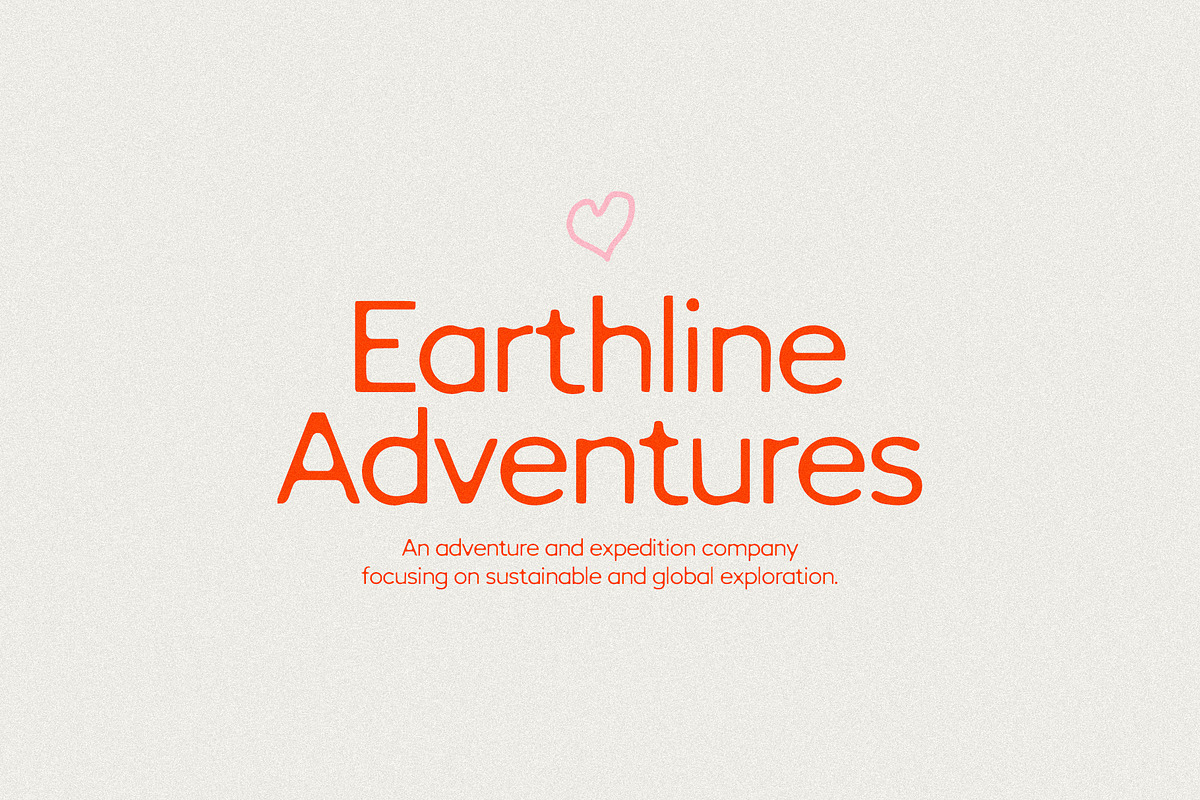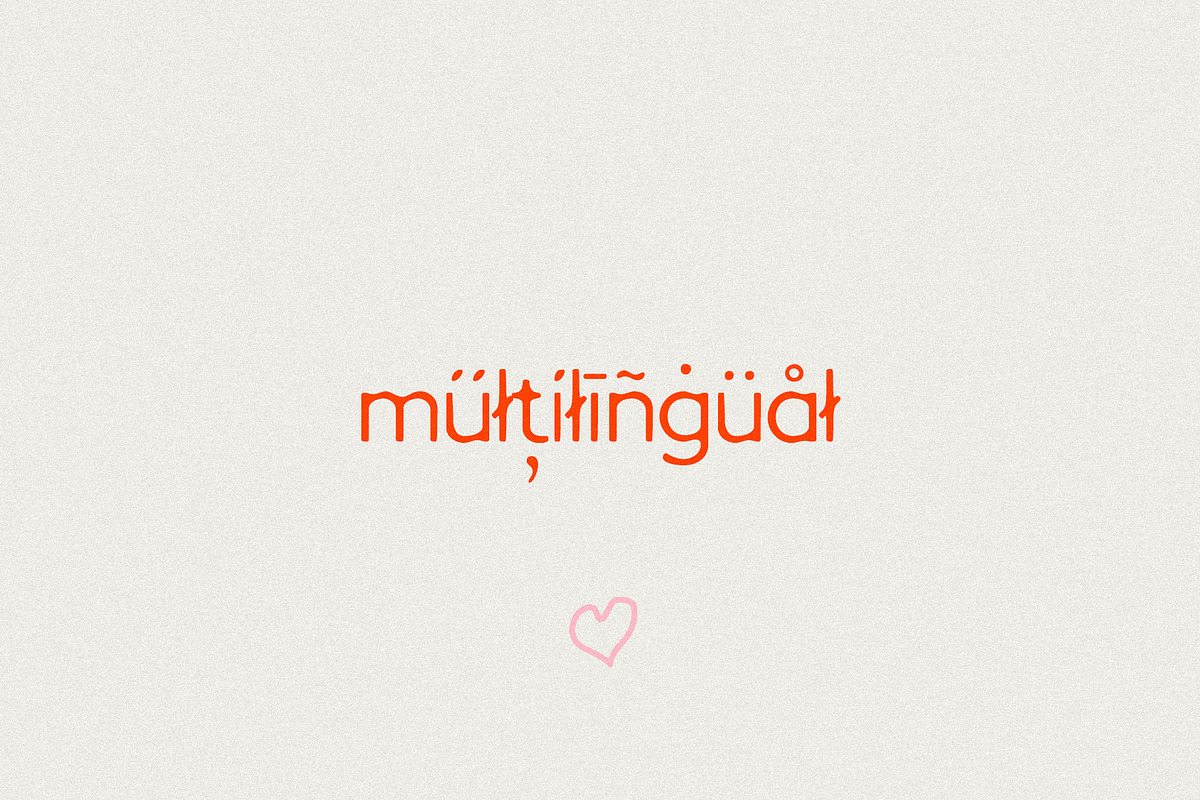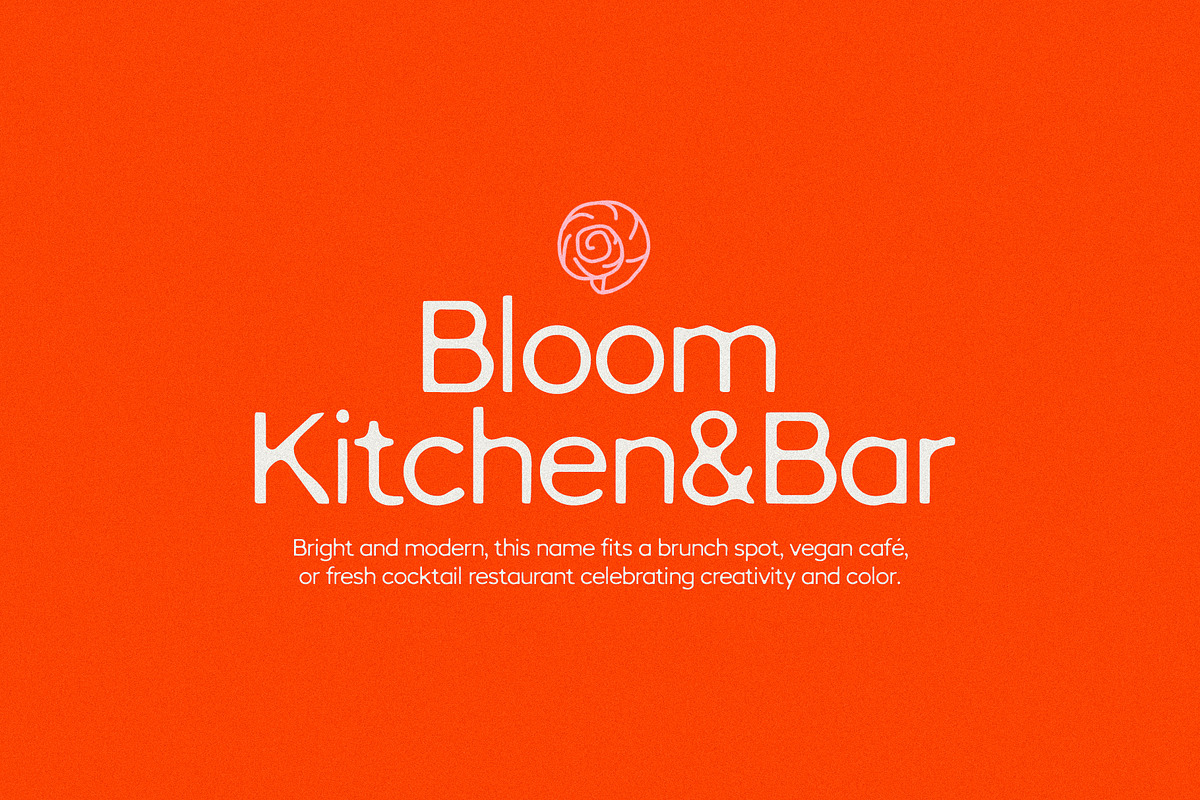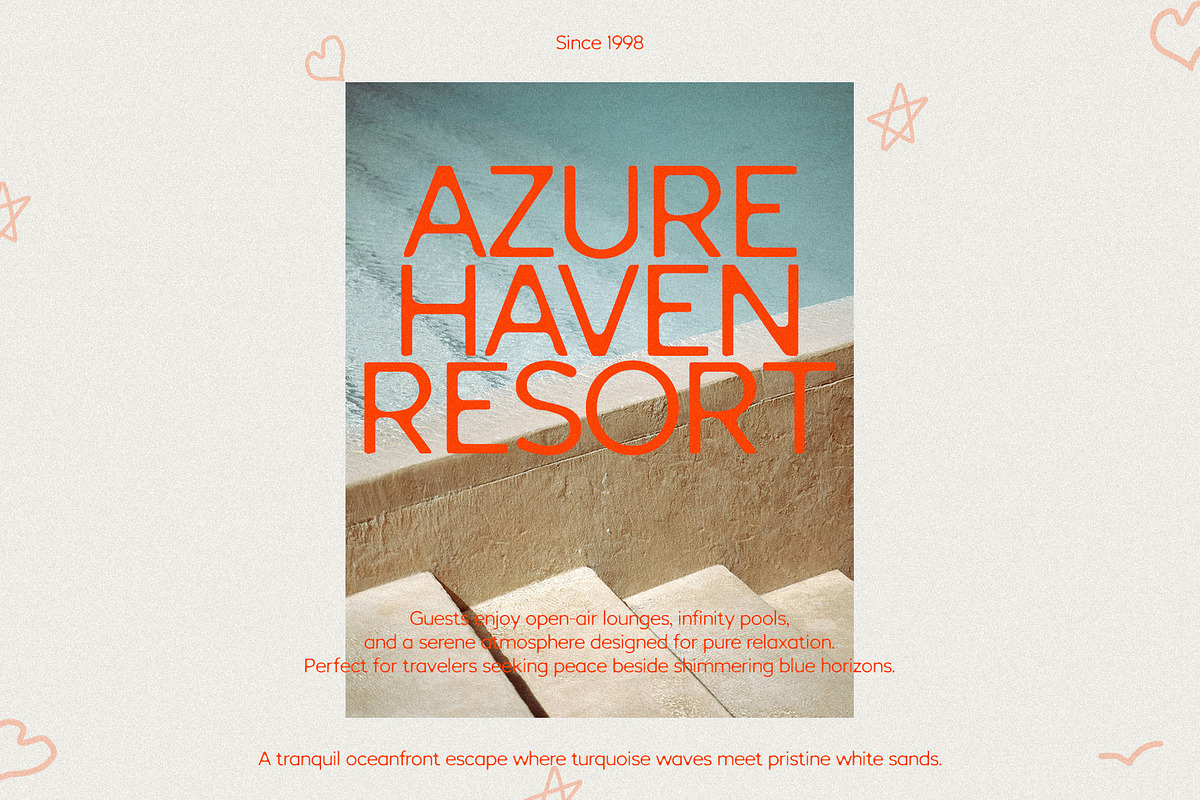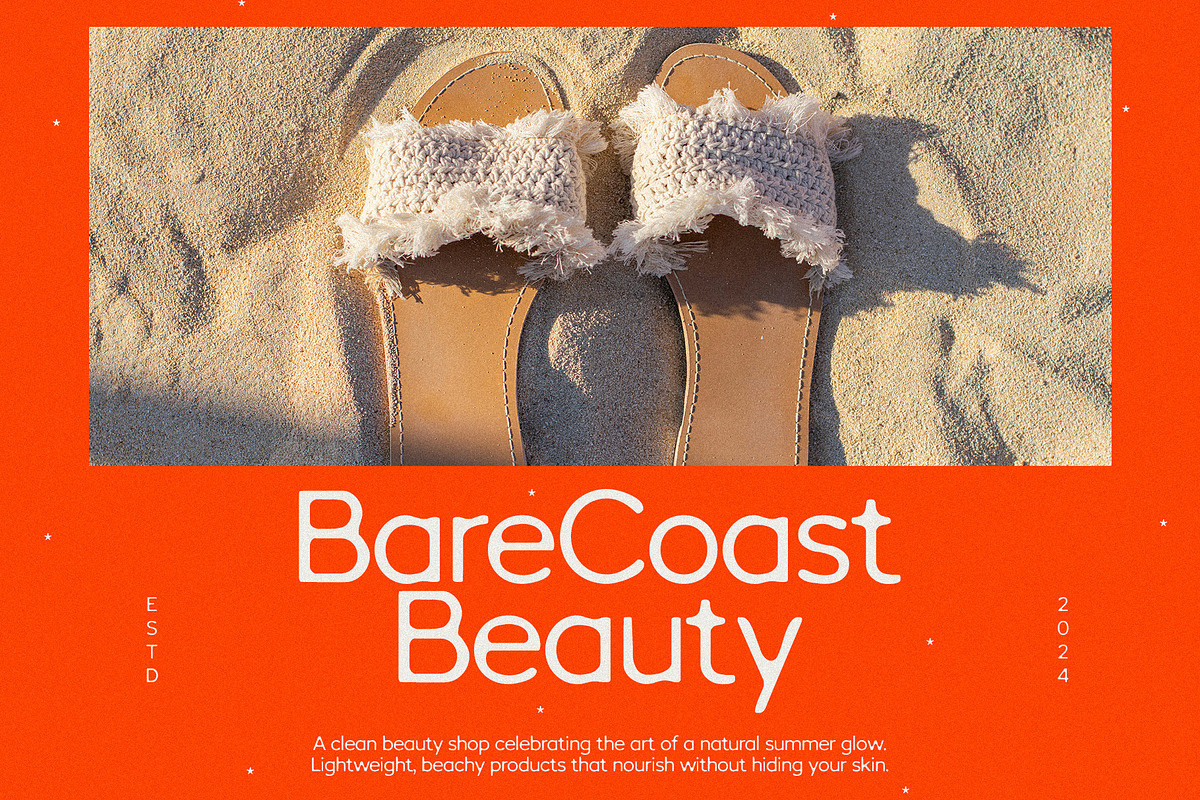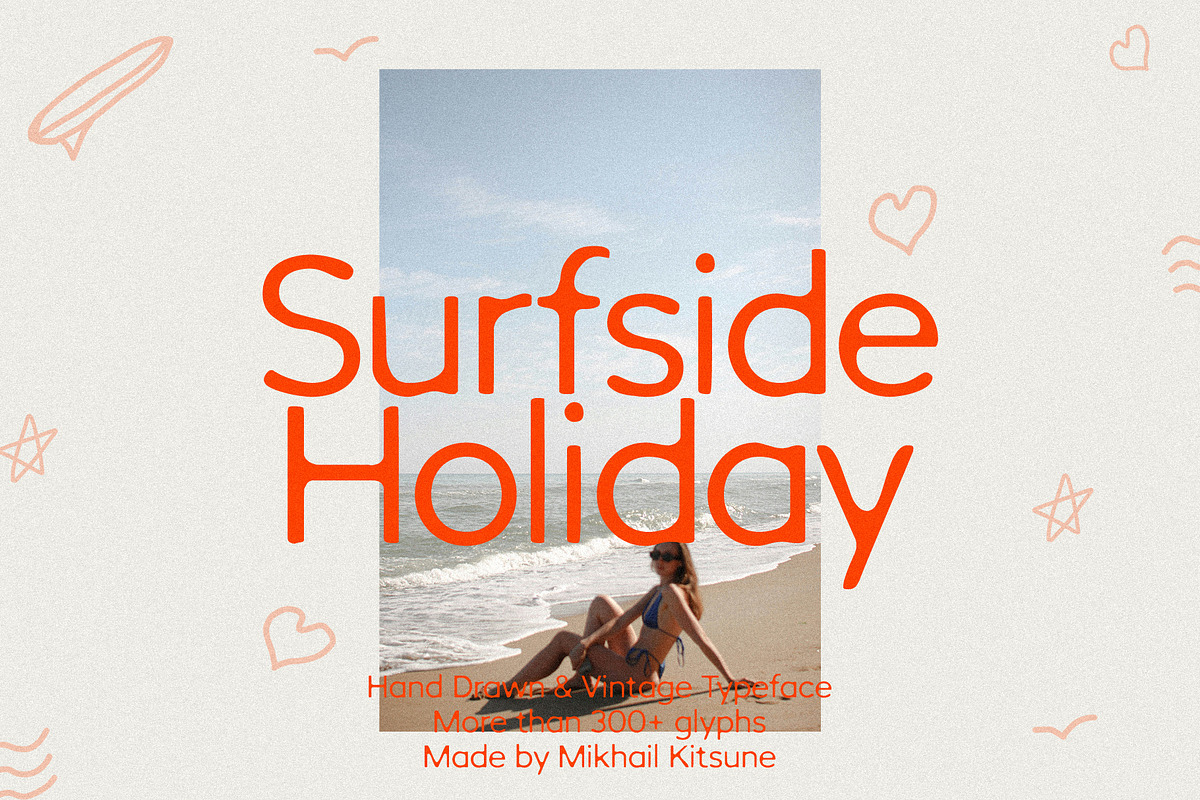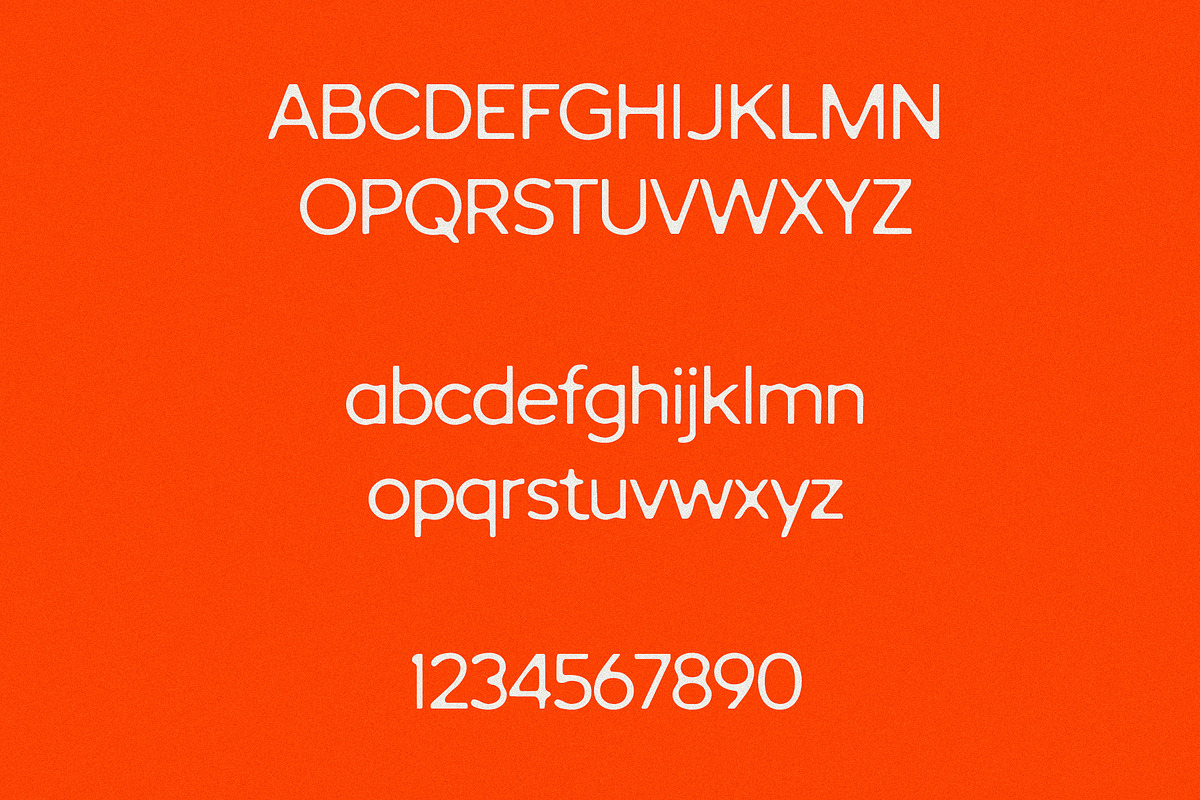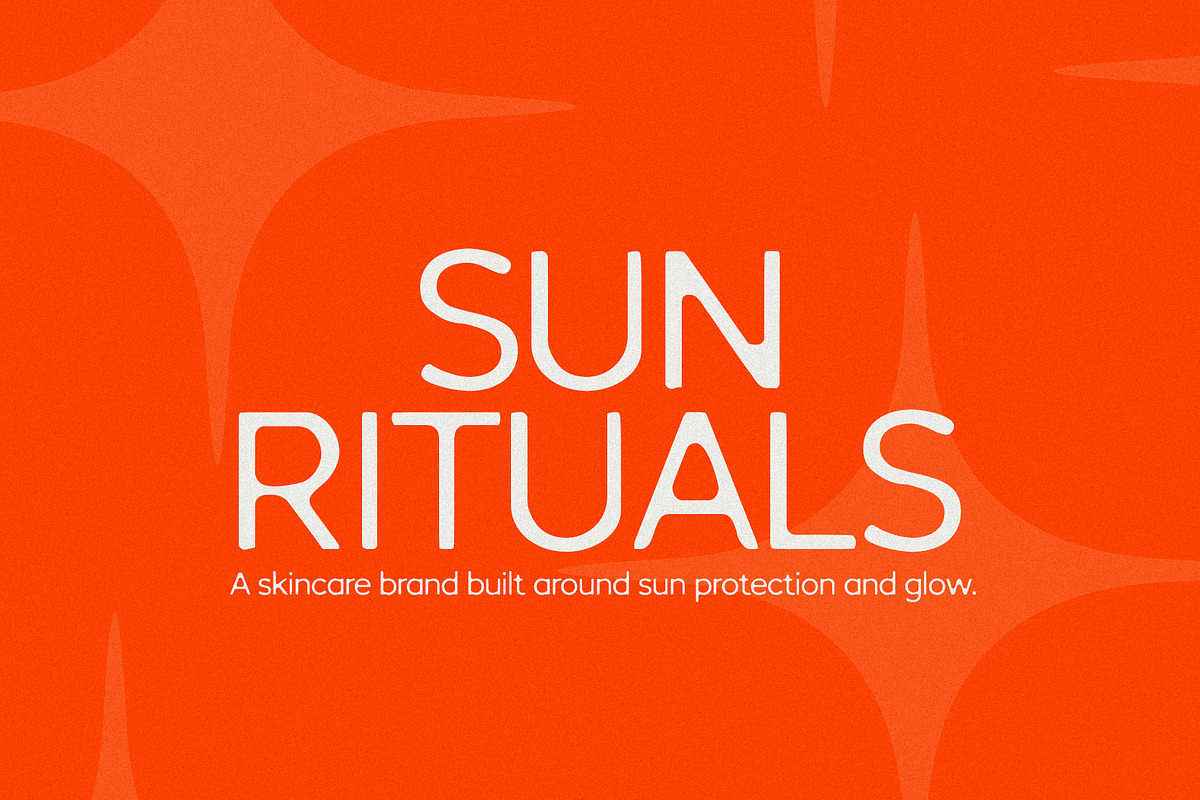
Surfside Holiday - Hand Drawn Serif
Surfside Holiday is a hand-drawn vintage serif that blends coastal nostalgia with warm, textured character, featuring imperfect strokes and retro-inspired details that evoke classic beach signage and sun-faded travel posters; perfect for branding, packaging, posters, and any design that calls for a relaxed, timeless, and effortlessly nostalgic aesthetic.
Surfside Holiday includes:
- Letters
- Symbols & Punctuation
- More than 300 glyphs